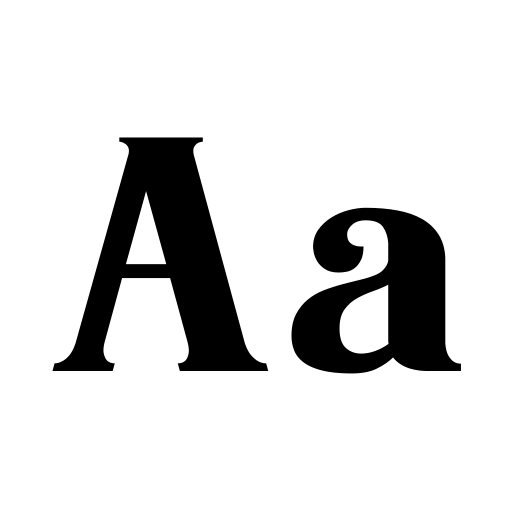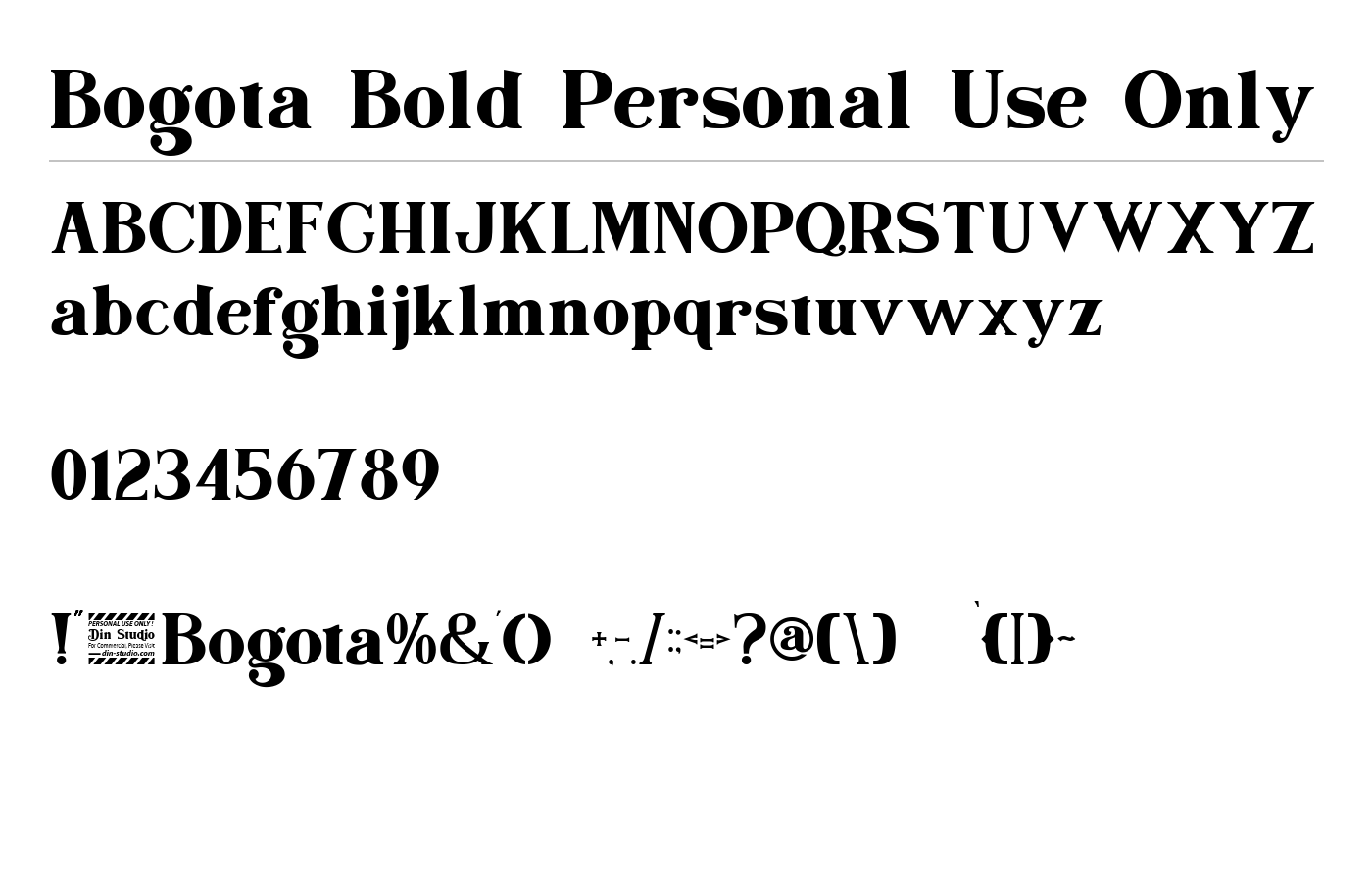
Bogota Bold Personal Use Only is a strong serif font with a bold weight and classic old-style influences, featuring high contrast between thick and thin strokes. Its sturdy serifs and slightly condensed letterforms give it a traditional yet commanding presence, making it an excellent choice for headlines, editorial use, and branding that seeks to convey confidence and timeless elegance. This font works well in print and digital settings where readability and impact are key.
Bogota Bold Personal Use Only Font
About Bogota Bold Personal Use Only Font